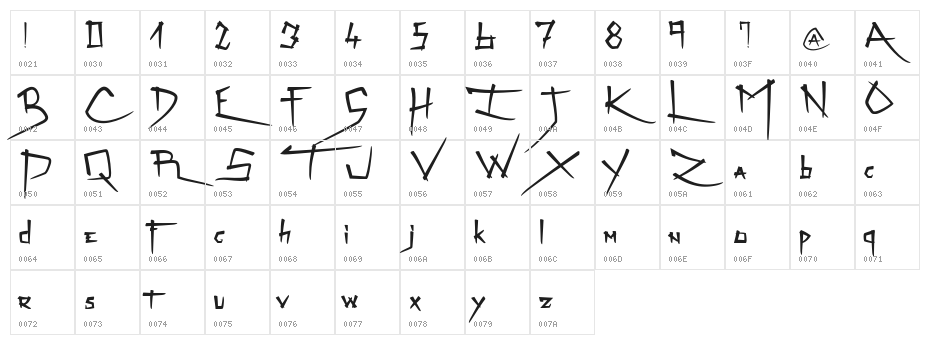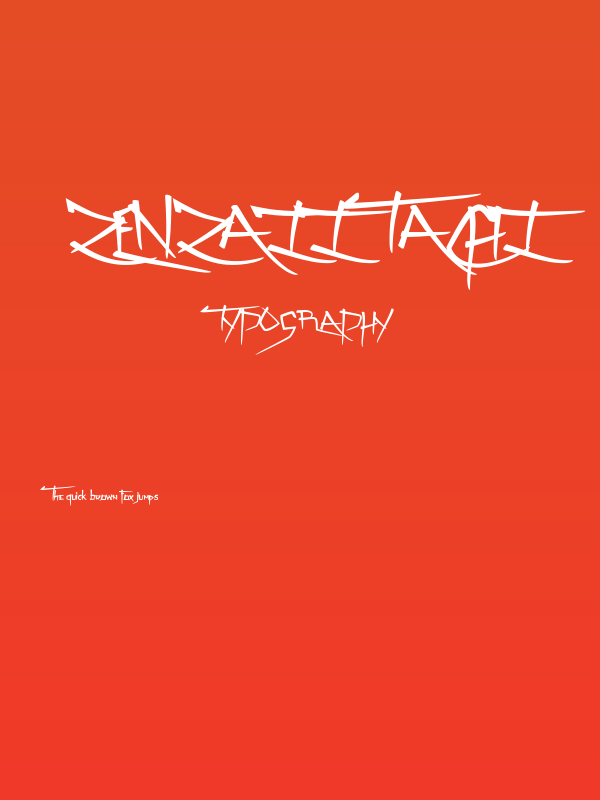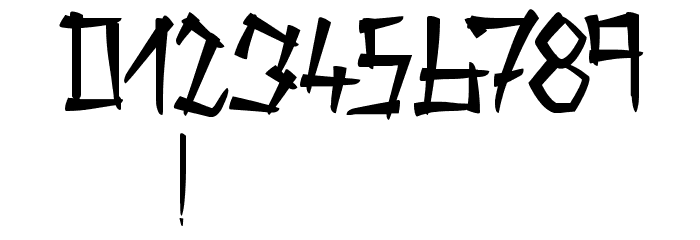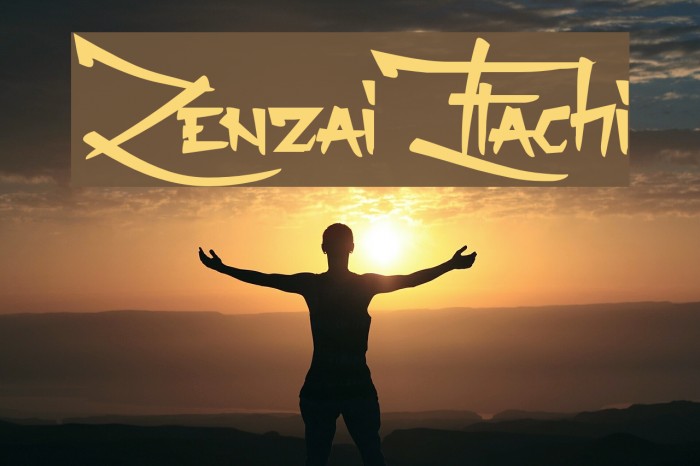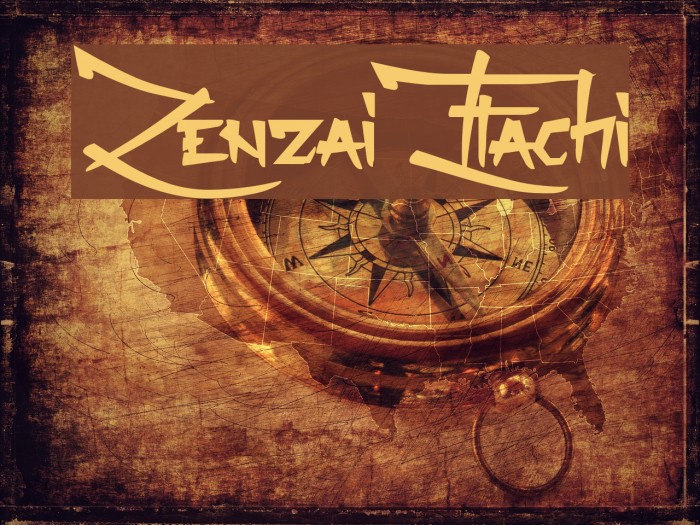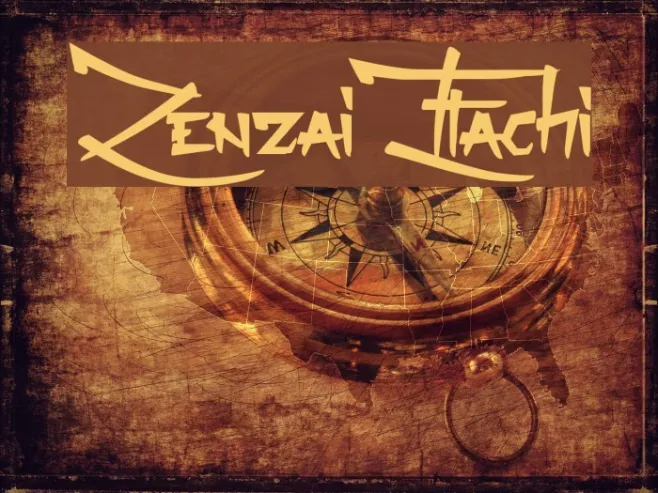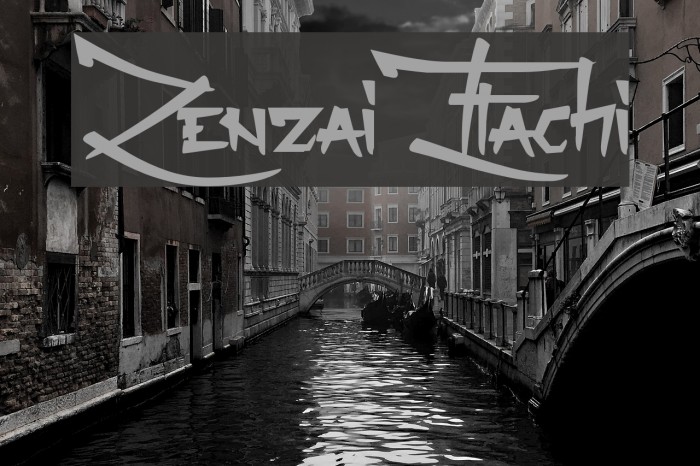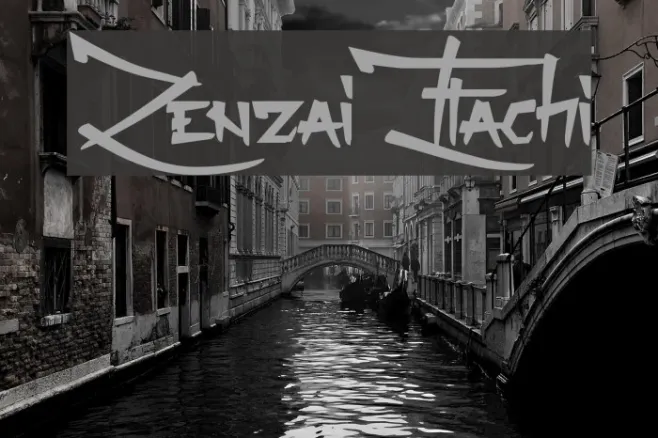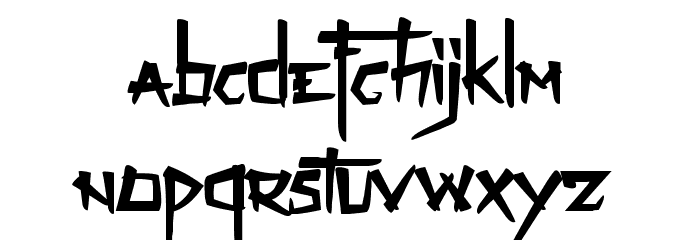
Zenzai Itachi Font
Zenzai Itachi Description
This font features a highly stylized and edgy design, characterized by sharp angles and irregular strokes that give it a graffiti-like appearance. The uppercase letters are bold and dynamic, with exaggerated lines that create a sense of movement and energy. The lowercase letters maintain this aesthetic, though they are slightly more compact, offering a balance between readability and artistic flair. Numbers and special characters follow the same design principles, ensuring consistency across all elements. This font's unique style makes it stand out, ideal for projects that require a strong visual impact.
| Overall Style | Modern, Urban |
| Use Case | Logos, Posters, Headlines |
| Proposed Projects | Ideal for street art designs, edgy branding, music album covers, and urban-themed posters. |